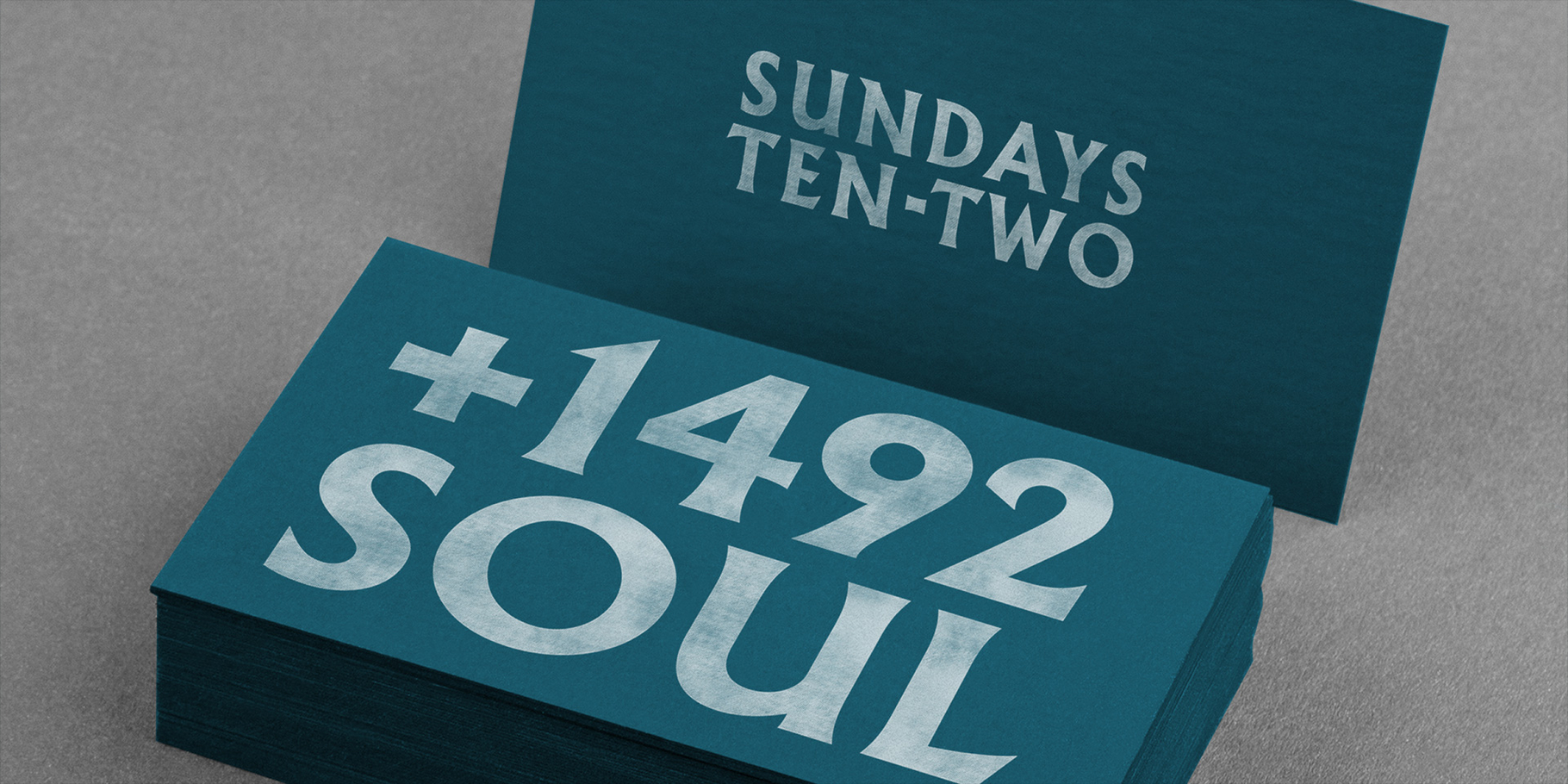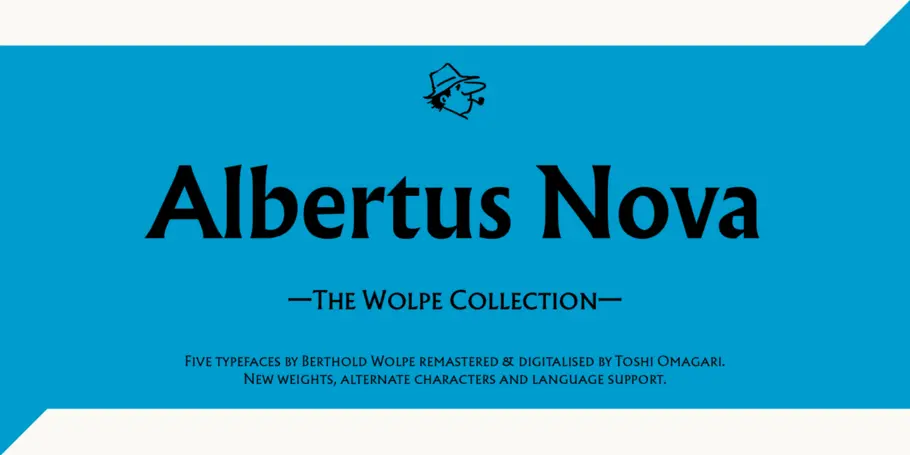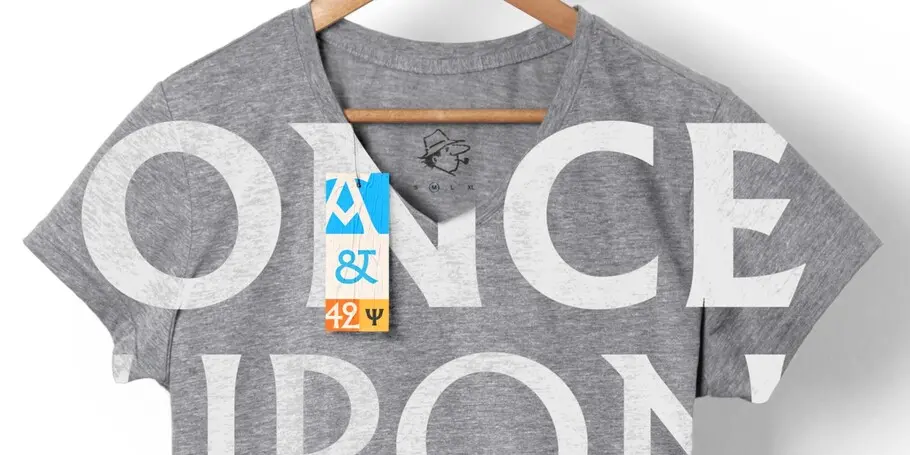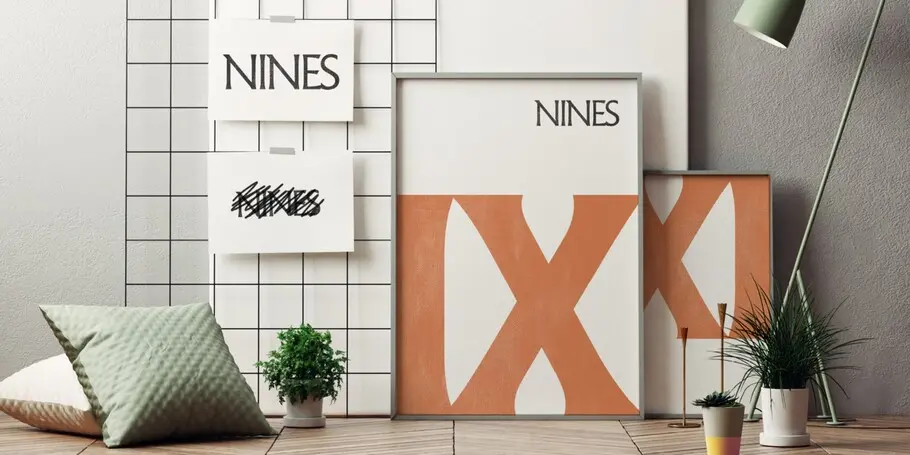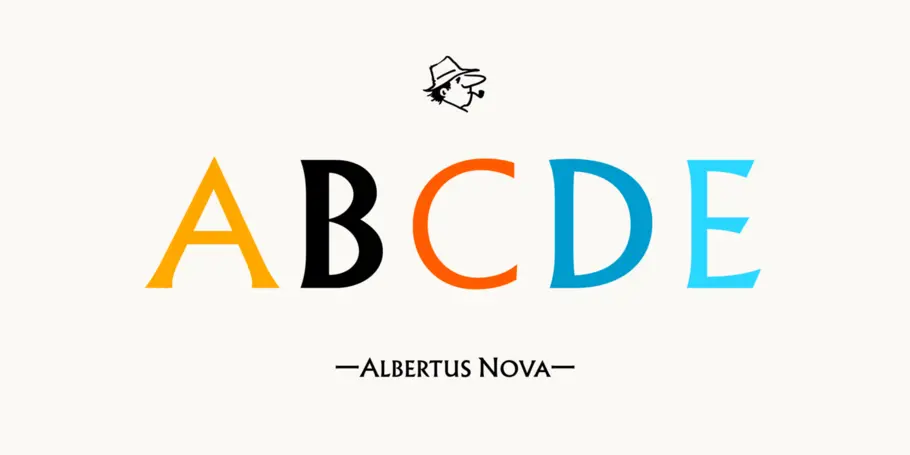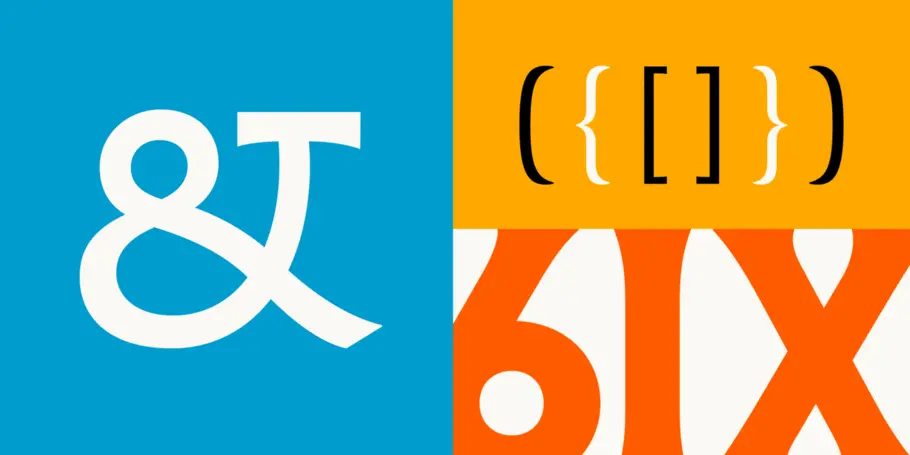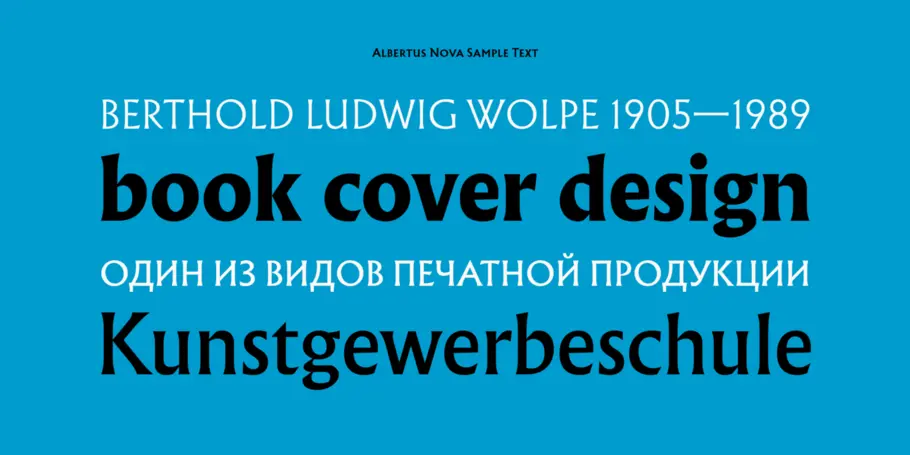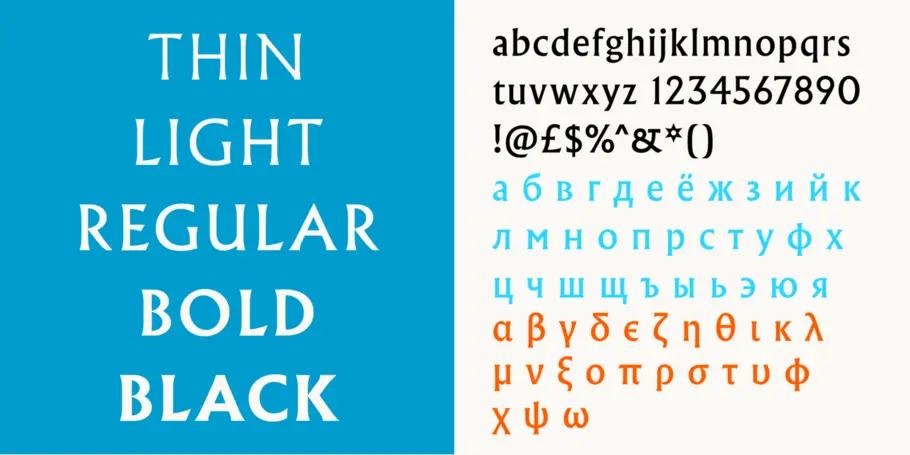
Albertus® Nova
The Wolpe Collection.
Albertus Nova is part of The Wolpe Collection of typefaces, and takes the best of the original Albertus design and expands the original character set with multiple weights, a set of small capitals and a number of alternate and original characters. The Wolpe Collection celebrates Berthold Wolpe’s outstanding body of work, and includes five iconic typefaces, digitized and updated by Toshi Omagari of the Monotype Studio.
In 1932, Monotype commissioned Berthold Wolpe to create the Albertus typeface. After World War II the City of London adopted Albertus as the font for all their street signs. Since then Albertus has been used on Sainsbury’s packaging, in cult-classic TV series, The Prisoner, on album covers of New Order, Coldplay, The Smiths and The Beach Boys, and on the crest of Liverpool FC.
In the Albertus Nova typeface, Toshi Omagari has revived a number of alternate capital letters created by Berthold Wolpe that have been unavailable in the existing digital version. This includes the uppercase M, W, J, E, R and Q. He designed five weights - light, thin, regular, bold and black- as well as Greek and Cyrillic characters.
His main focus, though, has been on righting the wrongs, as he sees them, of the digitally available lowercase version of the Albertus typeface. The crude internal angles and planed-off curves of some lowercase characters, Toshi discovered, were introduced to compact Wolpe’s letterforms for metal typesetting and these decisions were carried into the existing digital format. Toshi has designed the Albertus Nova typeface for modern applications.
Berthold Wolpe helped shape graphic design in post-war Europe. His book jackets, with their intense colour and vivacious typography, were way ahead of their time, and his Albertus® typeface continues to be widely admired and used by designers today.